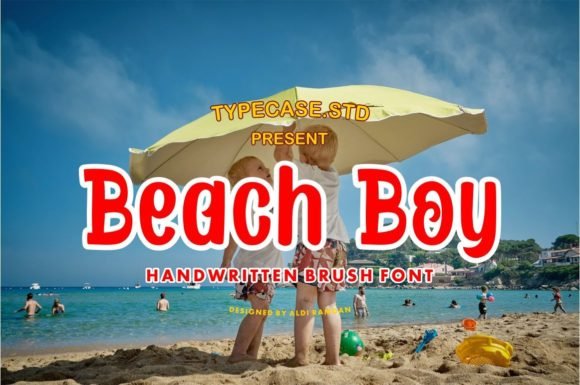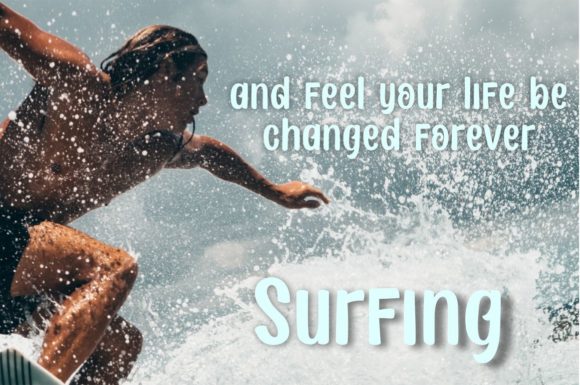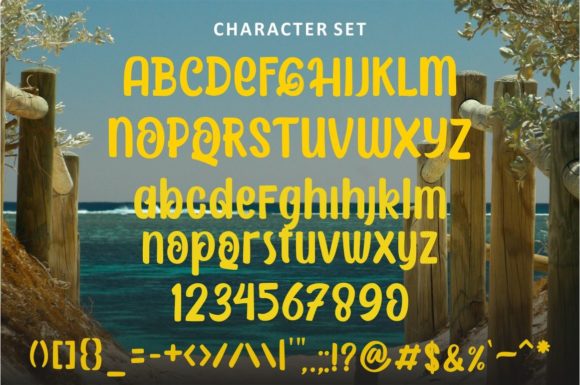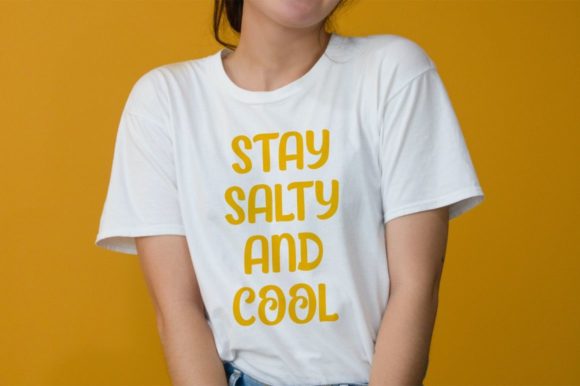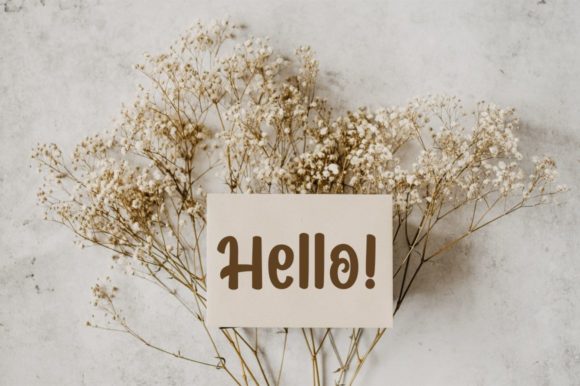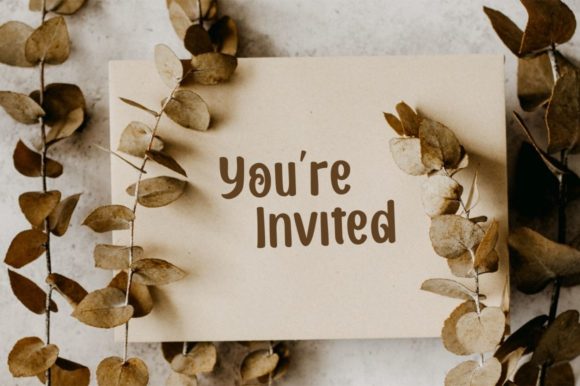
The Perfect Wave of Typography: Beach Boy Font
Have you ever found yourself sitting on a sandy beach, feeling the warm sun on your skin and the soothing sound of waves crashing against the shore? It’s in those moments that creativity strikes, and ideas start flowing. For designers, a spark of inspiration can come from anywhere, and for me, it was a beautiful beachside getaway that led me to discover the enchanting Beach Boy Font.
This elegant and natural font is perfect for designers who crave a handwritten touch in their projects. From branding and logos to wedding designs and social media posts, the Beach Boy Font is versatile and timeless. Its modern look makes it an ideal choice for designers who want to add a unique touch to their designs without sacrificing readability.
Beach Boy Font Key Features
- Font Family: Beach Boy Font is a unique, hand-drawn font designed to evoke a carefree, beachy vibe.
- Character Set: The font includes a wide range of characters, including uppercase and lowercase letters, numbers, and punctuation marks.
- Unique Characteristics: The Beach Boy Font features a playful, handwritten style with irregular brushstrokes and subtle texture, giving it a distinctive, hand-crafted look.
Beach Boy Font Review
The Beach Boy Font is a font designed to evoke the carefree spirit of summer and the beach. Here’s my honest review of this font.
- Unique and playful feel – The Beach Boy Font has a distinct personality that’s perfect for designs related to summer, beach, or outdoor activities.
- Good for body text – The font is legible and clear, making it suitable for use in paragraphs or longer blocks of text.
- Customizable – The font comes in various weights and styles, allowing designers to mix and match to achieve the desired look.
- Limited usage in formal contexts – The playful nature of the font may not be suitable for formal or professional designs.
- Lack of serif or sans-serif versions – Depending on the design, a serif or sans-serif version of the font might be more suitable, but this is not available.
The Beach Boy Font is a fun and energetic font that’s perfect for summer-themed designs or outdoor-related projects. While it may not be suitable for all design contexts, it’s a great choice for designers looking to add a playful touch to their work.
Tips for Getting the Most Out of Beach Boy Font
Use the Beach Boy Font for beach-themed designs, such as surfboard graphics, beach party invitations, and summer-themed social media posts.
Combine the Beach Boy Font with other beach-inspired graphics, such as seashells, palm trees, and sunglasses, for a cohesive look.
Experiment with different font sizes, colors, and styles to create a unique and eye-catching design.